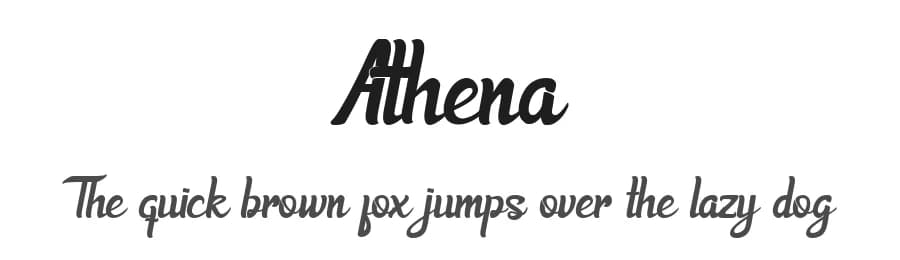
About Athena Font
Athena is a name taken from the name of a holy goddess. Having extraordinary intelligence and beauty, this is where a description of the name of the Athena font itself. Where has a handsome beauty and has many advantages.
Athena This font is perfect for logos, brochures, pamphlets, invitations, flayers, and other design purposes.
-Alternate character
-Ligatures (Ligature Aa-Az and more)
-Multilingual Support
Athena Font is a script font that shines as a display or heading face. Pair it with a clean sans-serif or serif font for body text β the contrast creates a clear hierarchy while the two styles stay balanced and easy to read.